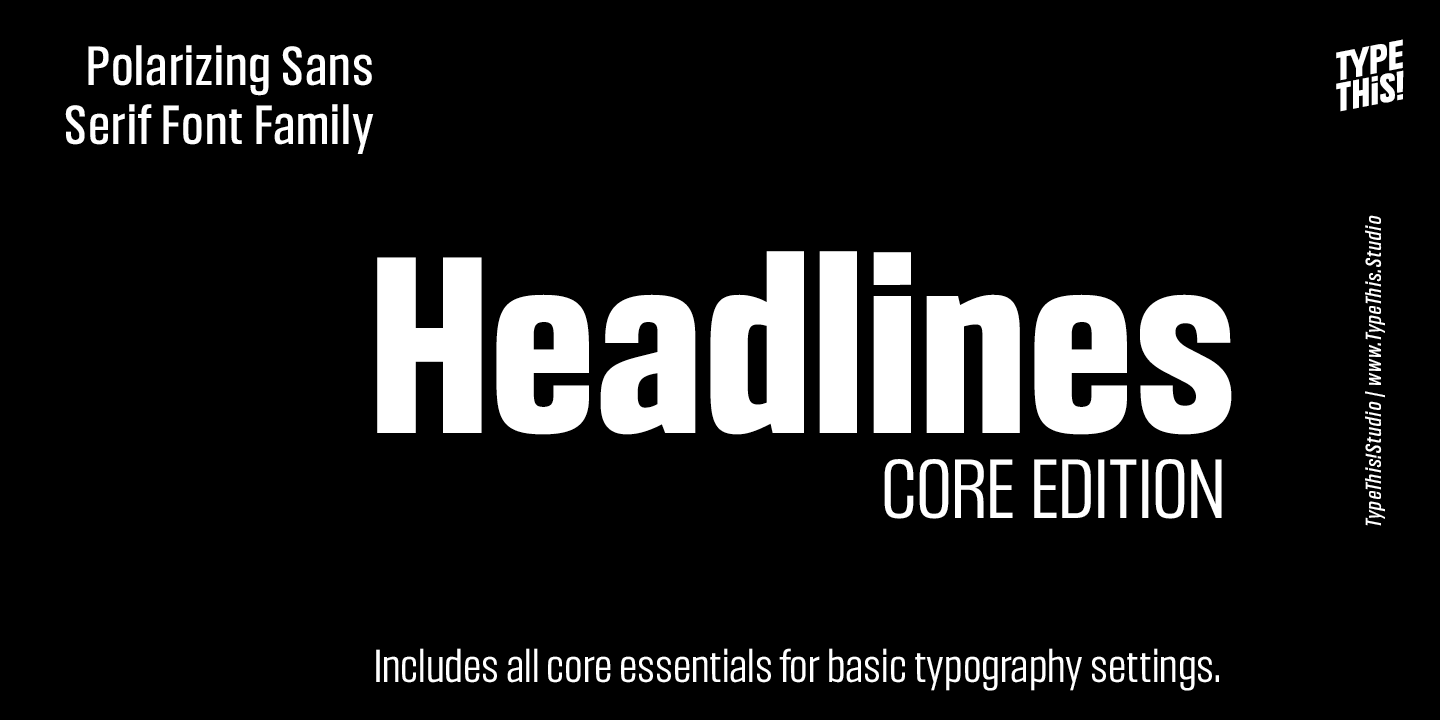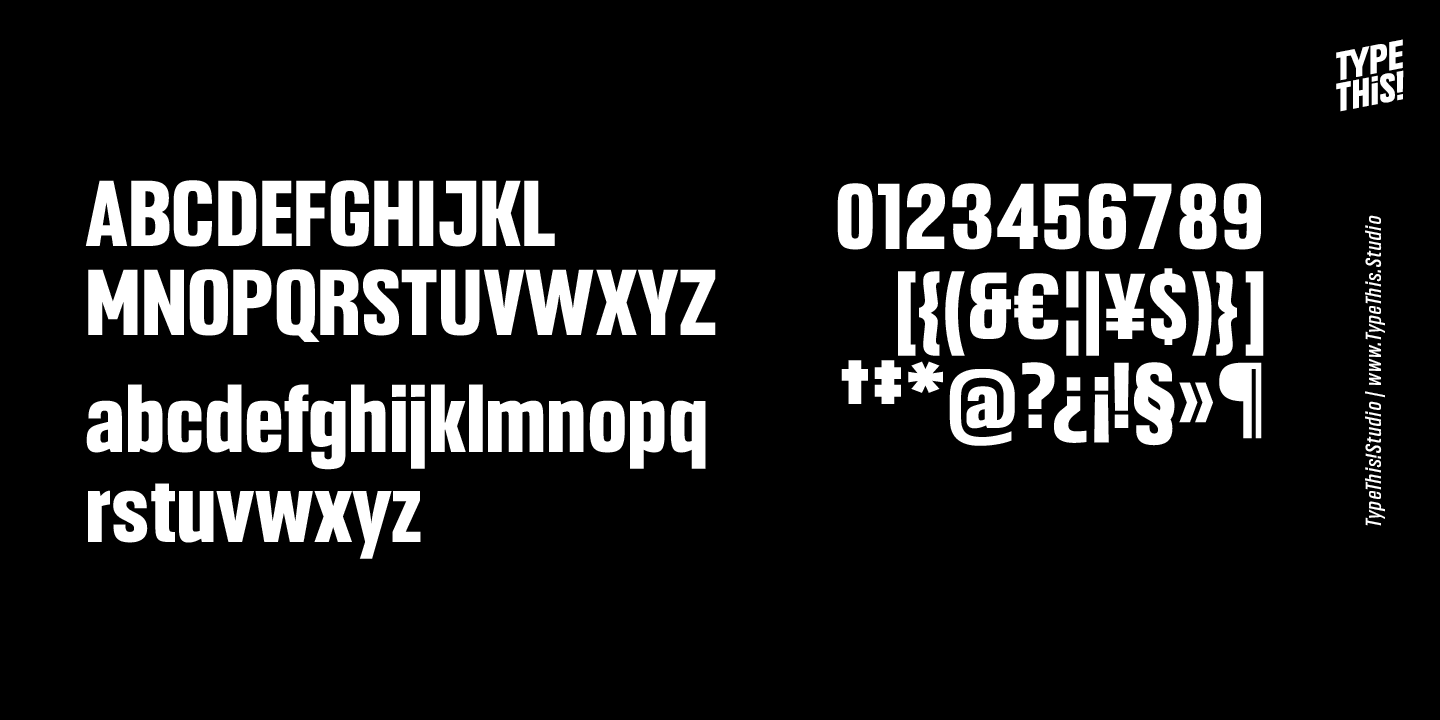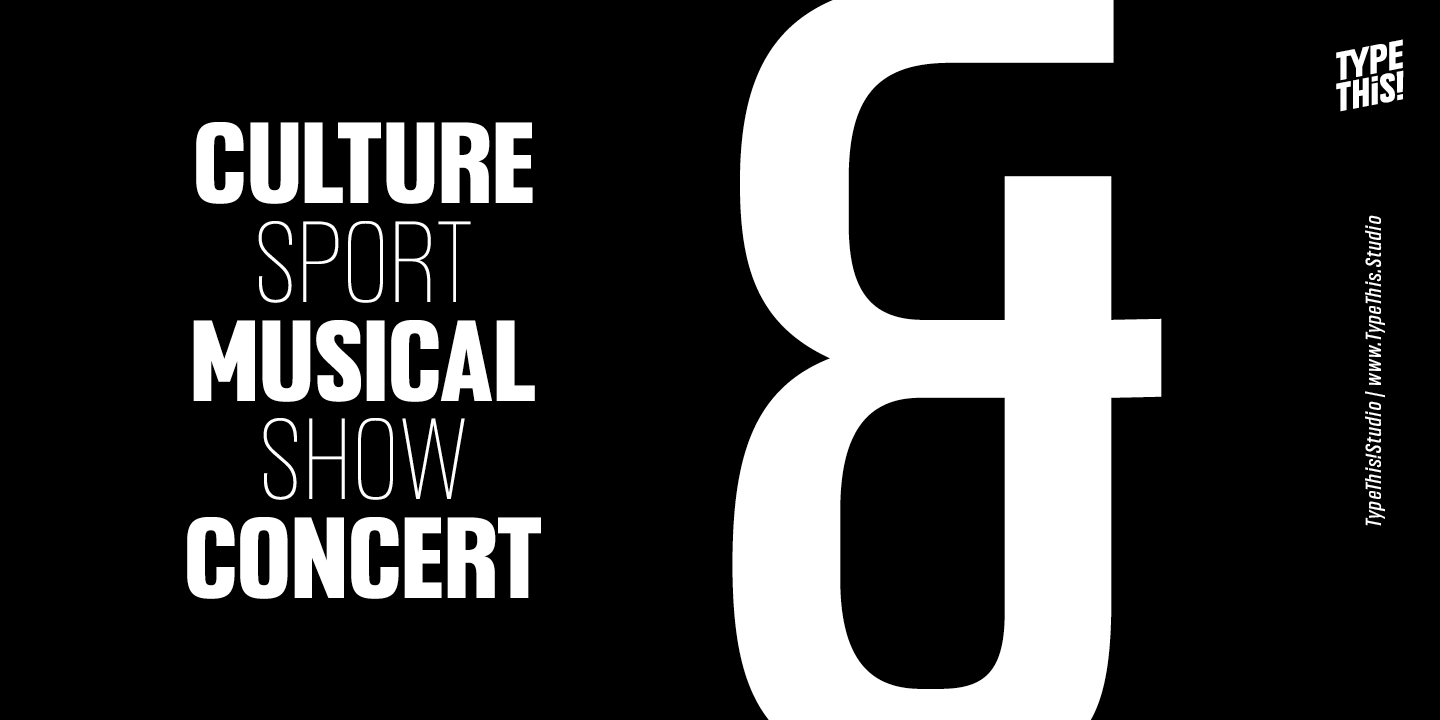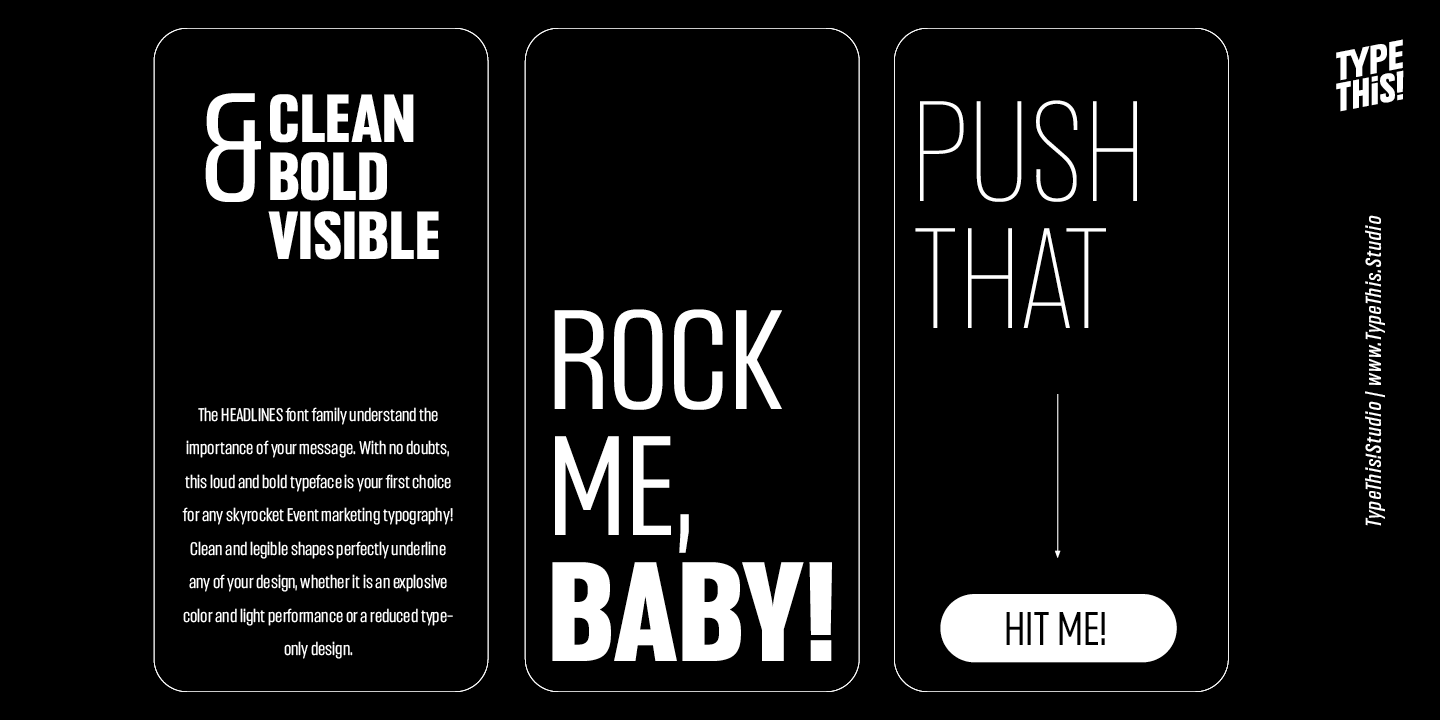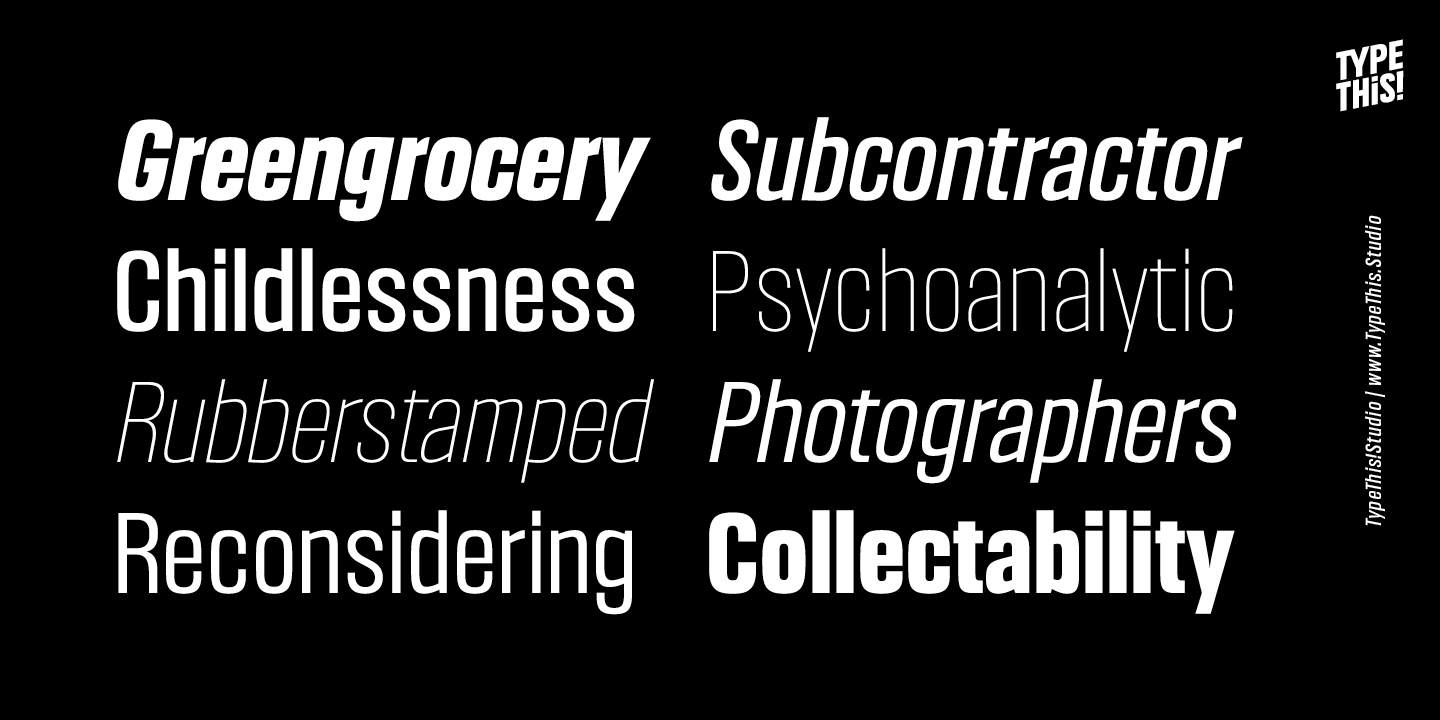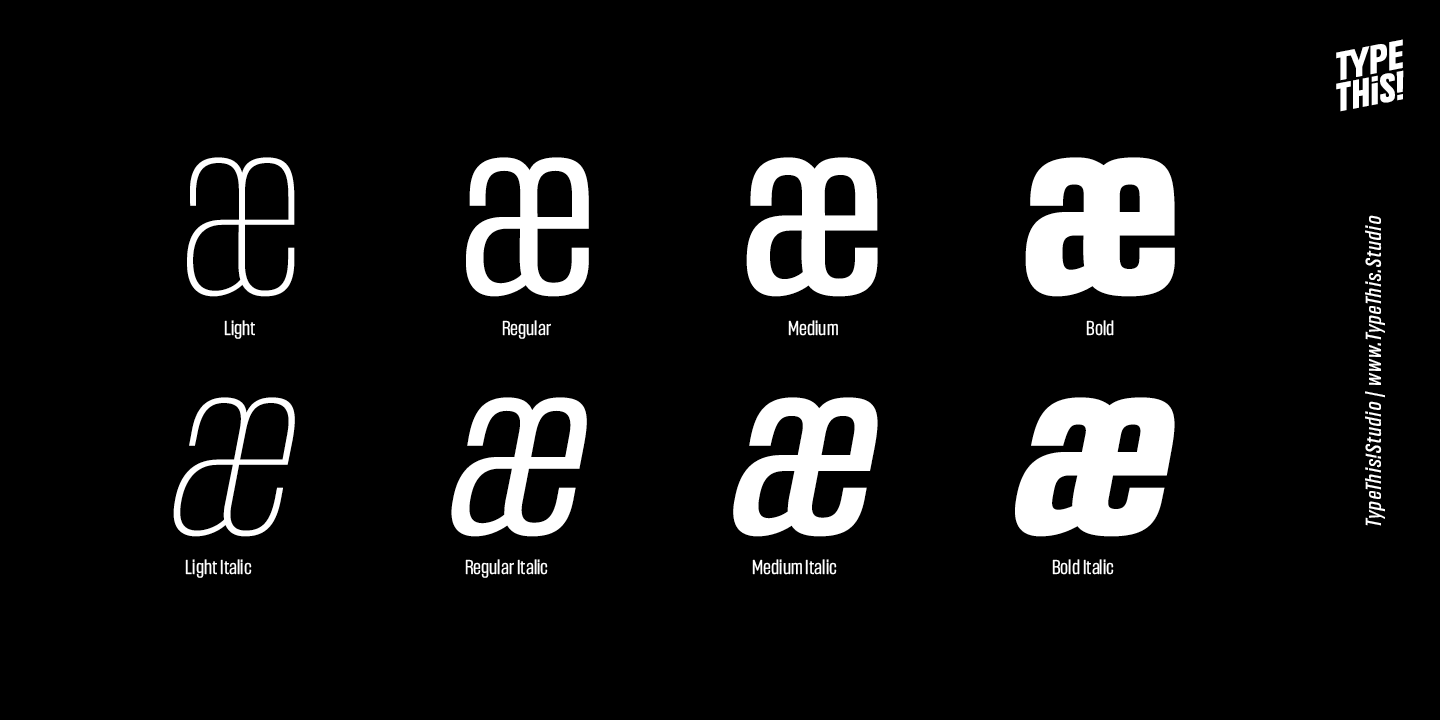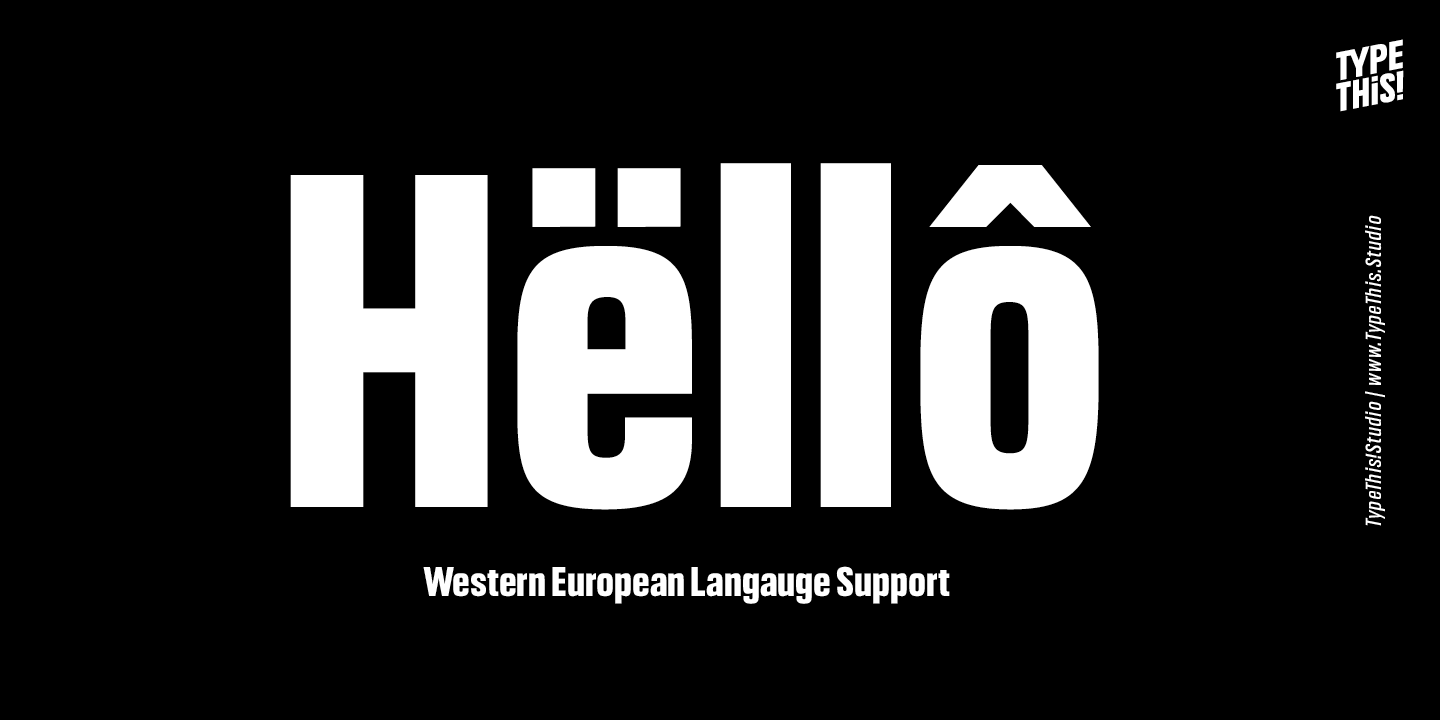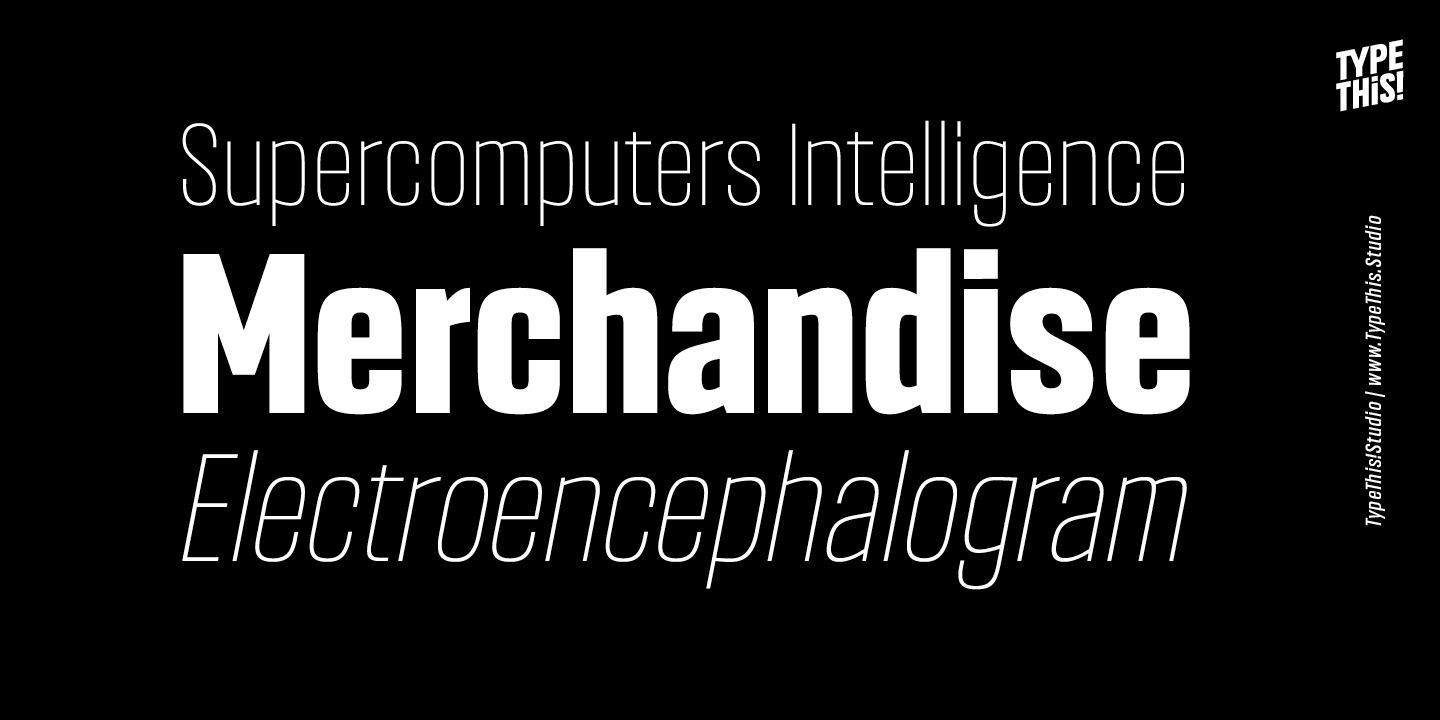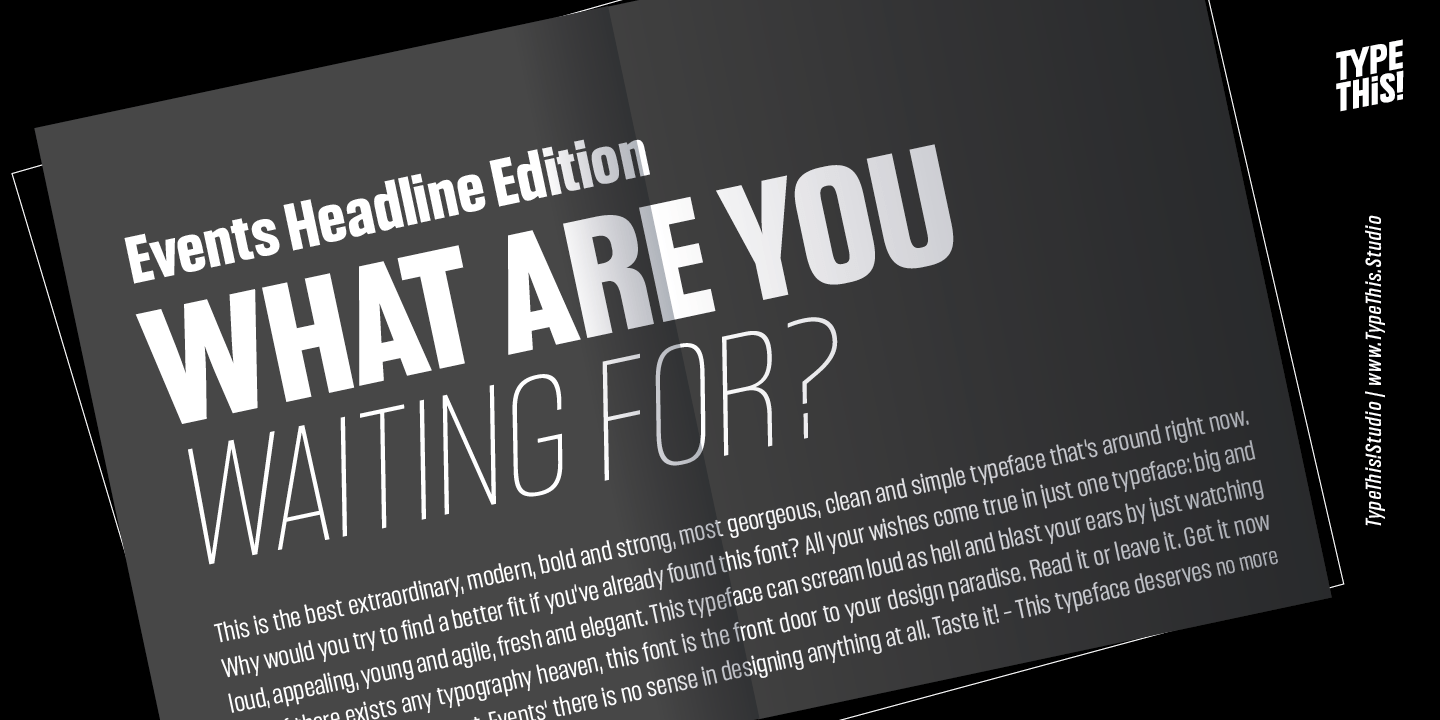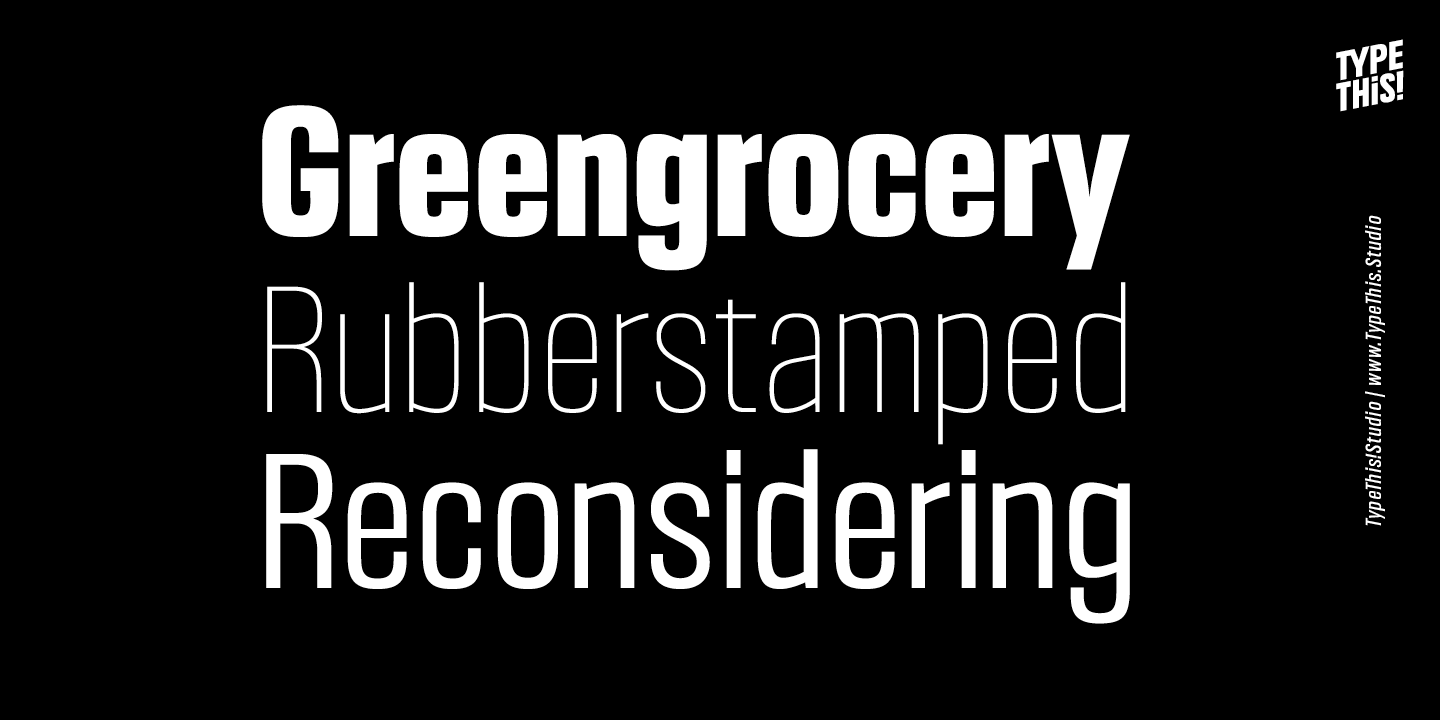
Headlines Core
Font Family by TypeThis!Studio
Headlines font family was designed for optimized headline settings.
The condensed letters are designed for clear and straight headlines and also allow longer words and headlines to find the space they need for a well-composed headline.